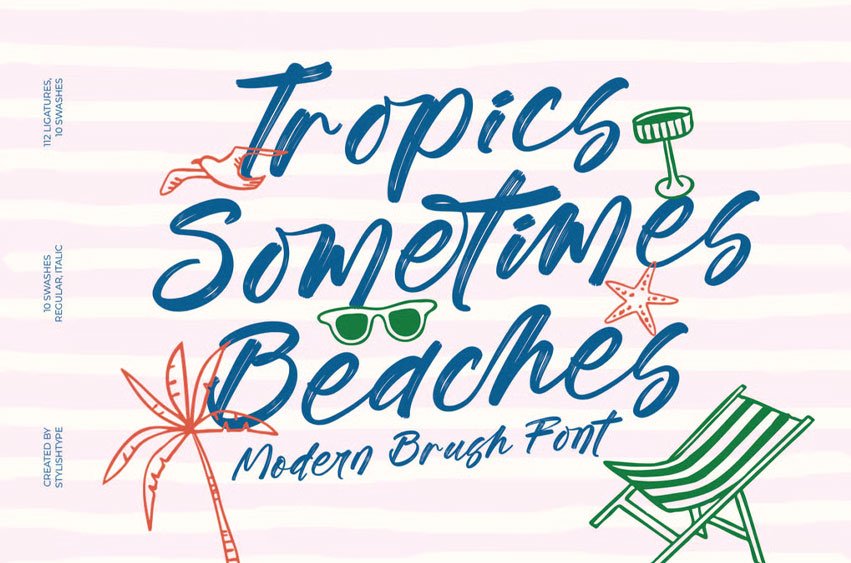
Tropics Sometimes Beaches Font is a modern brush script inspired by sunny coastlines, playful summer moods, and carefree handwritten strokes, delivering an energetic and relaxed aesthetic perfect for branding that needs a warm vacation vibe.
Designed with natural brush textures, flowing curves, and expressive movement, this typeface comes packed with 112 ligatures, 19 alternates, and 10 swashes, giving creators full flexibility to craft dynamic logotypes, beach-themed posters, travel merchandise, drink packaging, summer event titles, and stylish social-media graphics. Its hand-drawn feel and breezy personality make it ideal for lifestyle brands, tropical cafés, resort ads, handmade products, and any project that wants to communicate fun, freedom, and coastal charm.